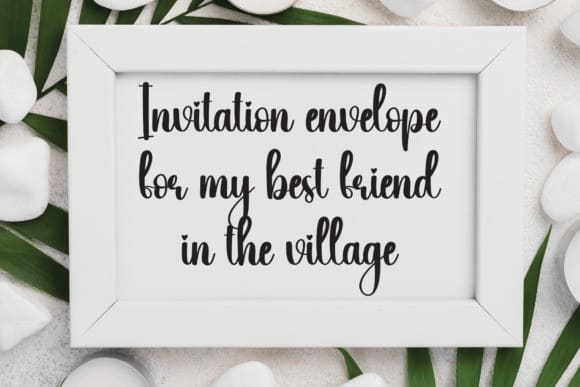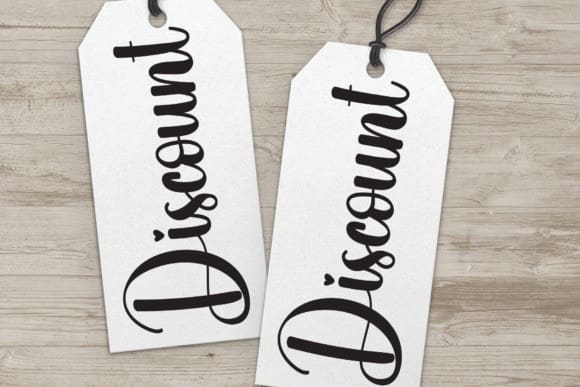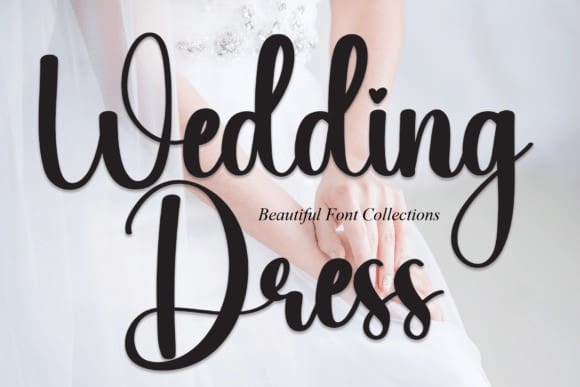
Wedding Dress Font
Wedding Dress Font is a romantic and sweet calligraphy typeface with characters that dance along the baseline. It will add a luxury spark to any design project that you wish to create!